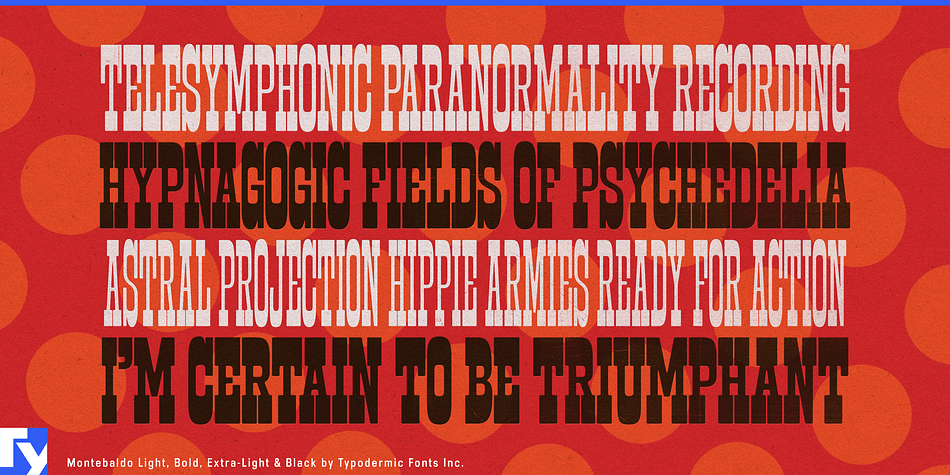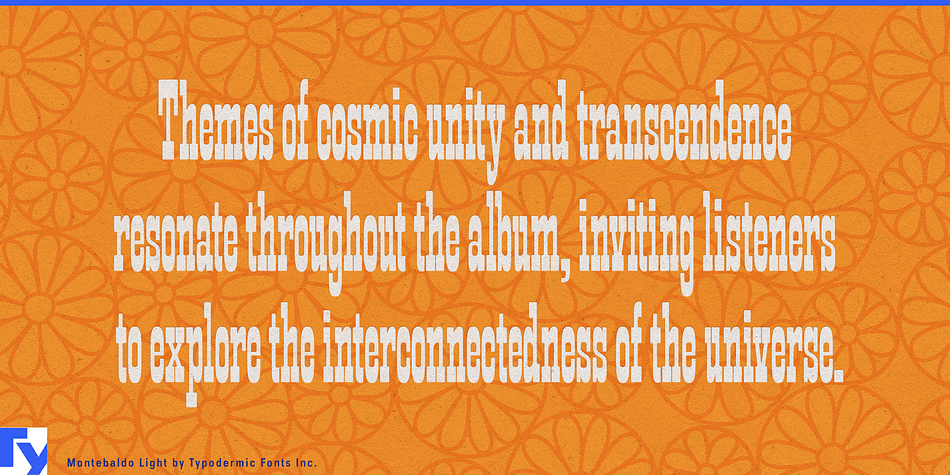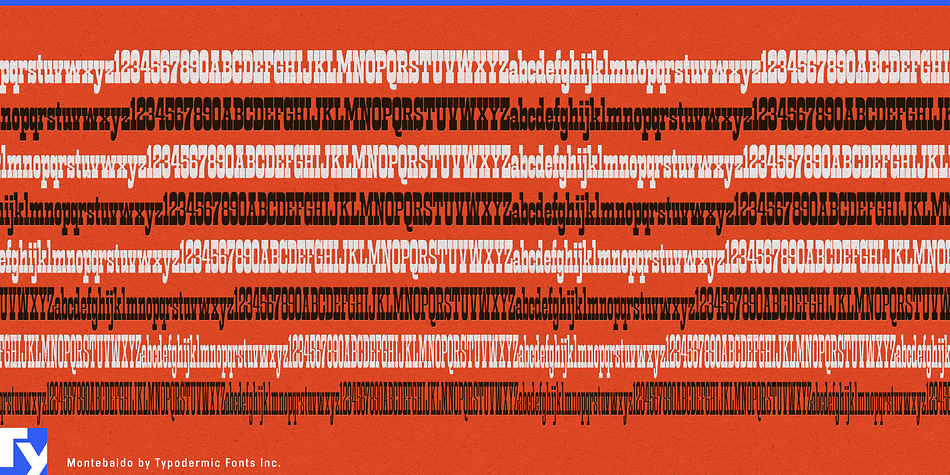
Montebaldo—a typeface that whispers tales of celluloid dreams and silver screen glamour. This inverse slab serif from Typodermic Fonts doesn’t just nod to the 1960s; it embodies the era’s cinematic essence, frame by captivating frame.…